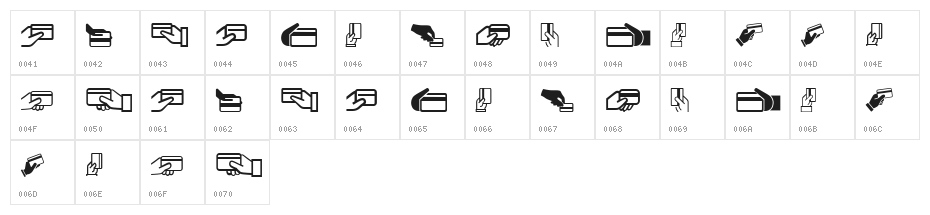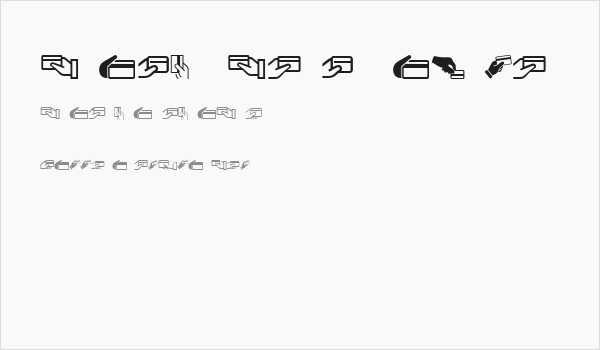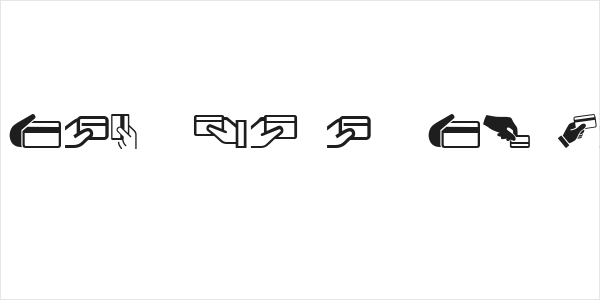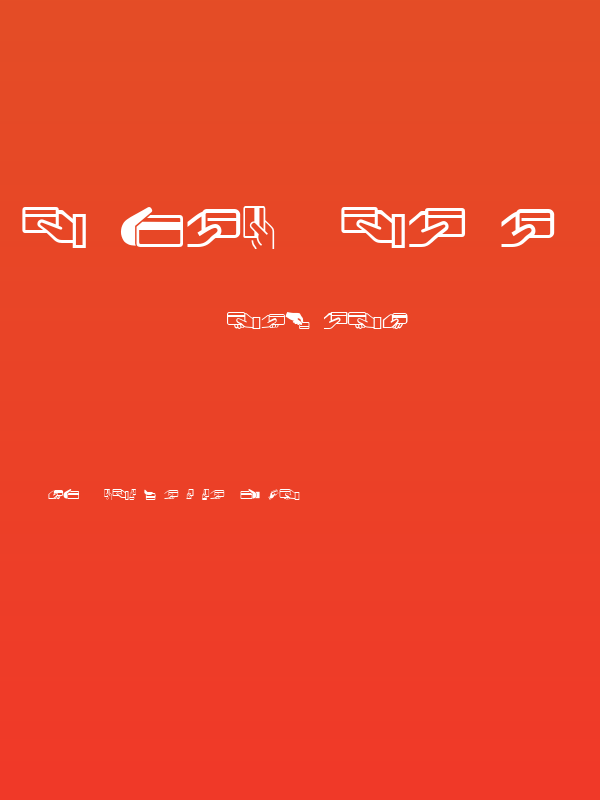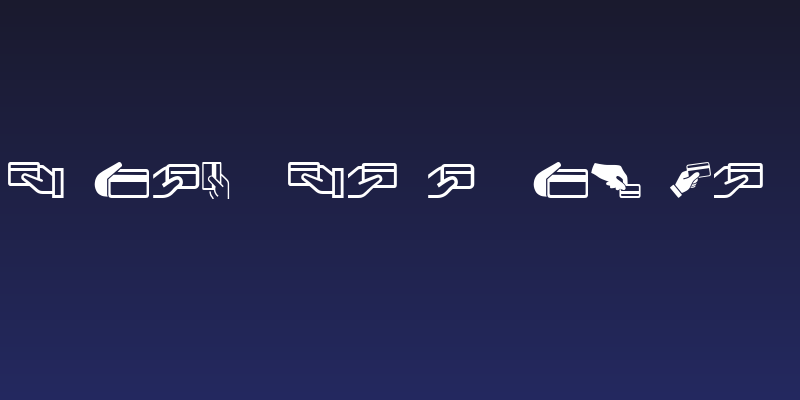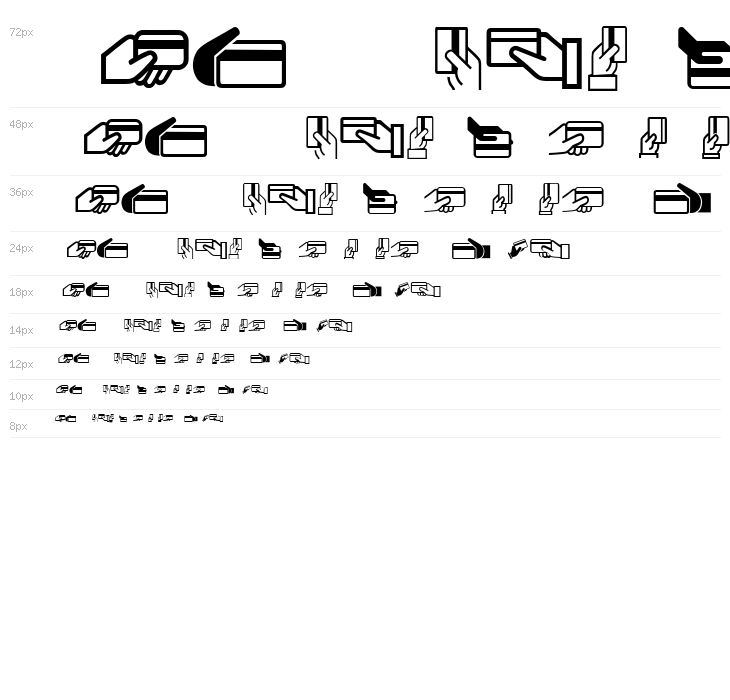
Credit Card Regular Font
Credit Card Regular Description
A pictogram-style font featuring bold, outlined illustrations of hands holding or exchanging credit cards, with each character representing a different gesture or transaction scenario. The icons are clear, geometric, and highly legible, designed in a consistent line-art style.
| Overall Style | Modern, Pictographic, Functional |
| Use Case | Icons, Infographics, Signage, Branding |
| Proposed Projects | Financial infographics, payment system interfaces, fintech branding, educational materials about transactions, signage for retail or banking. |